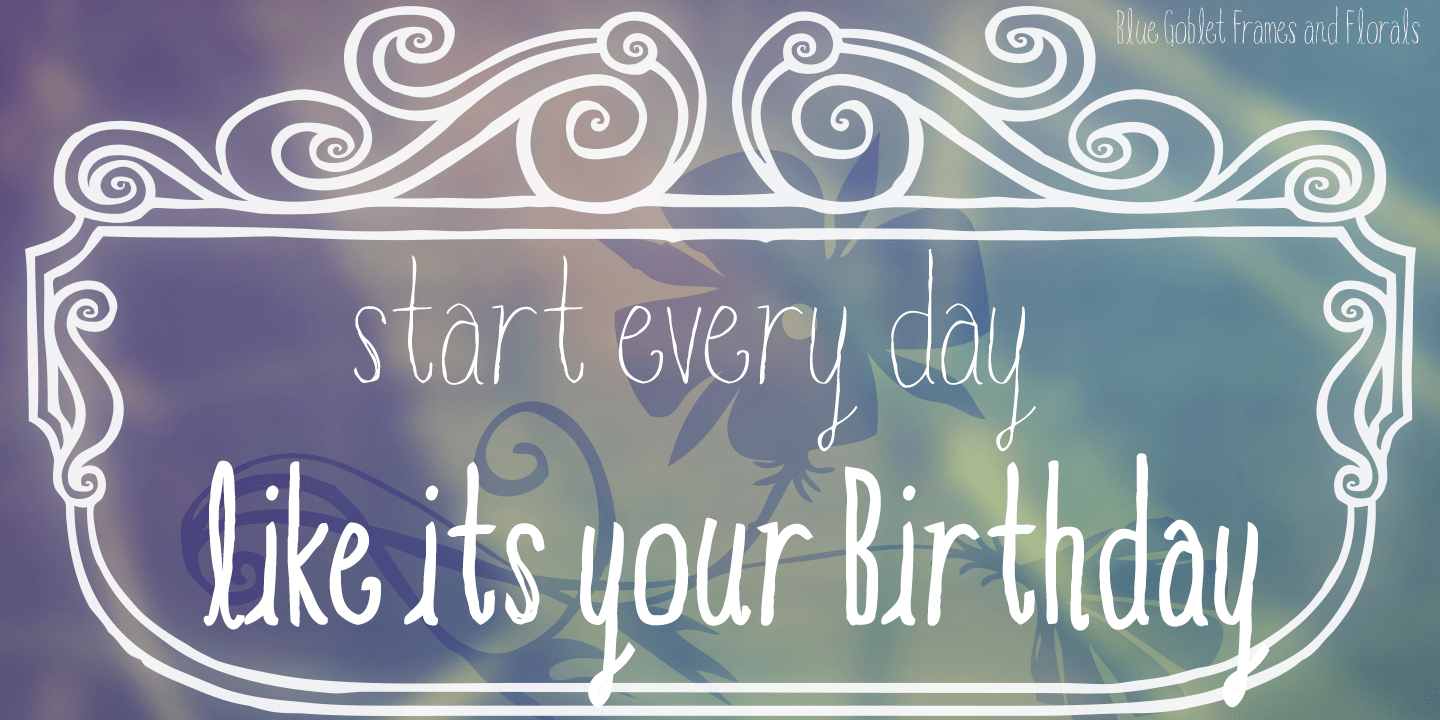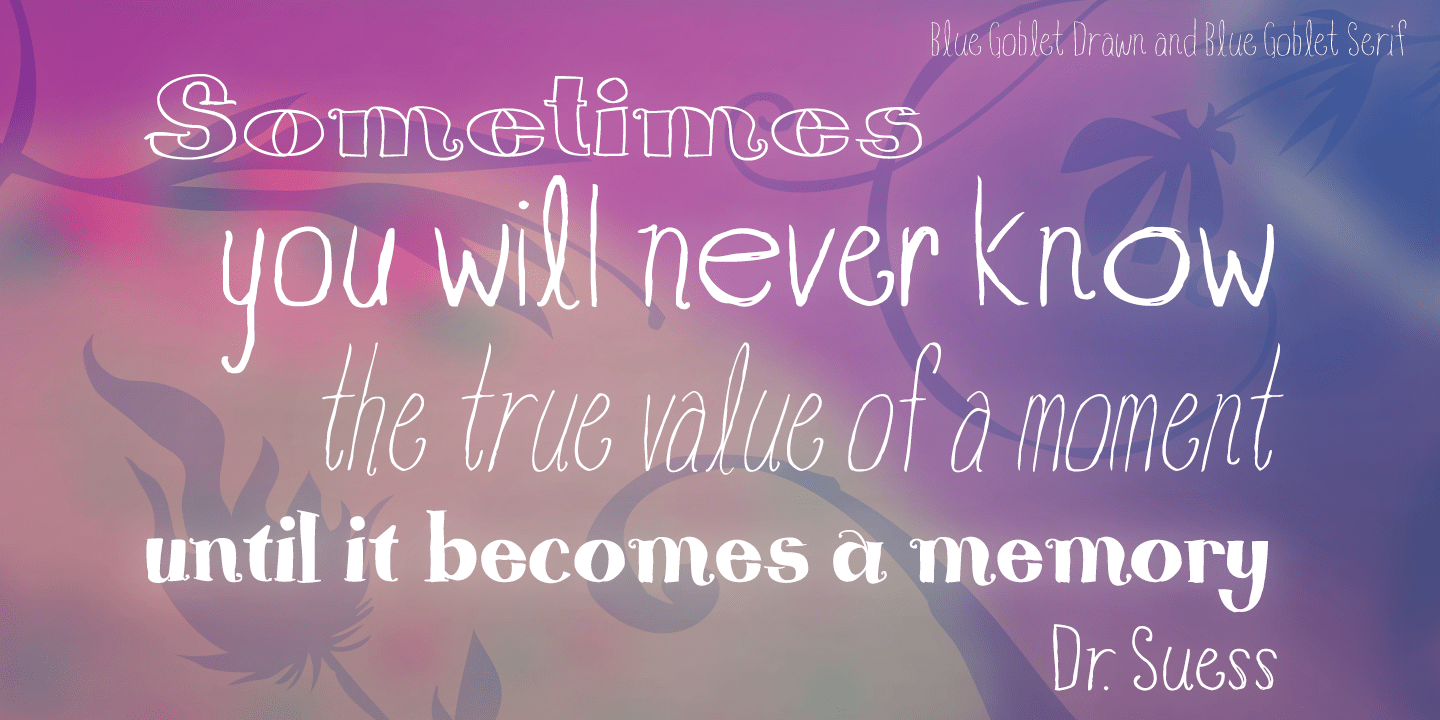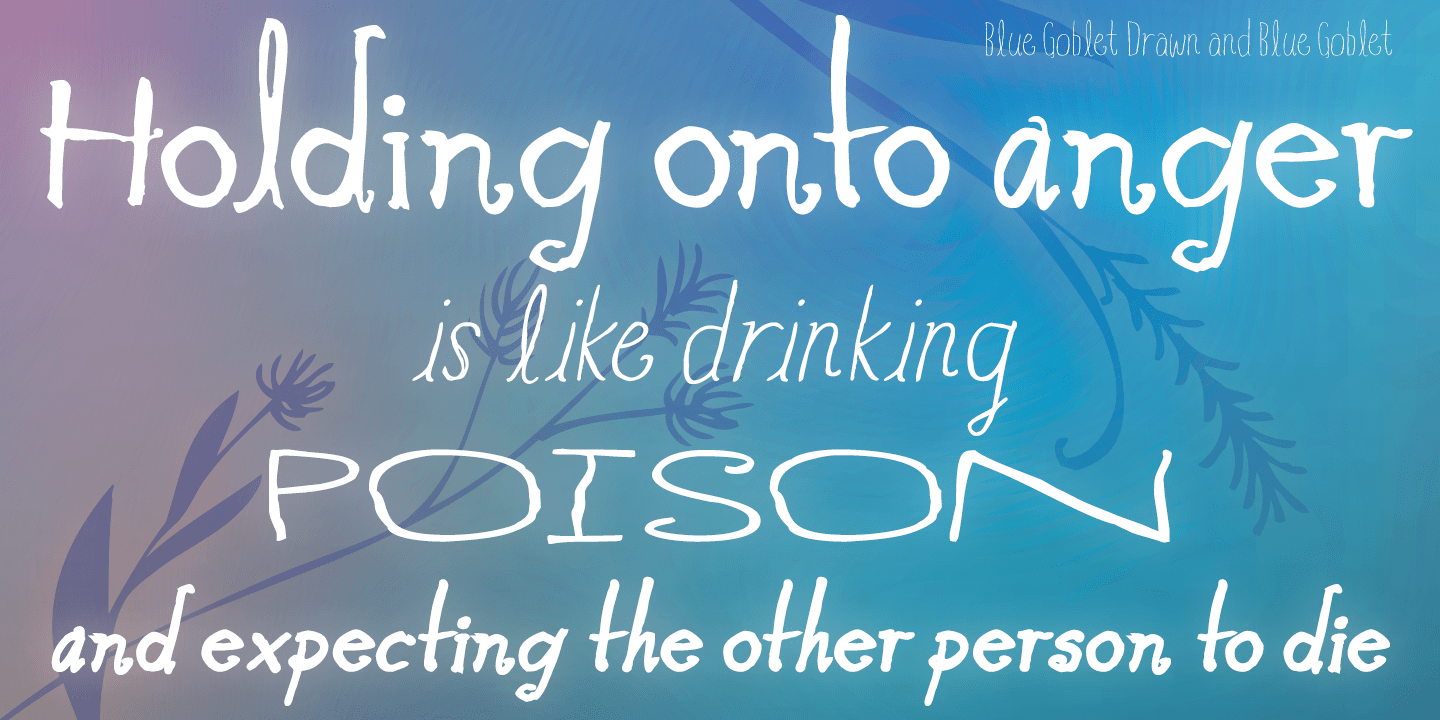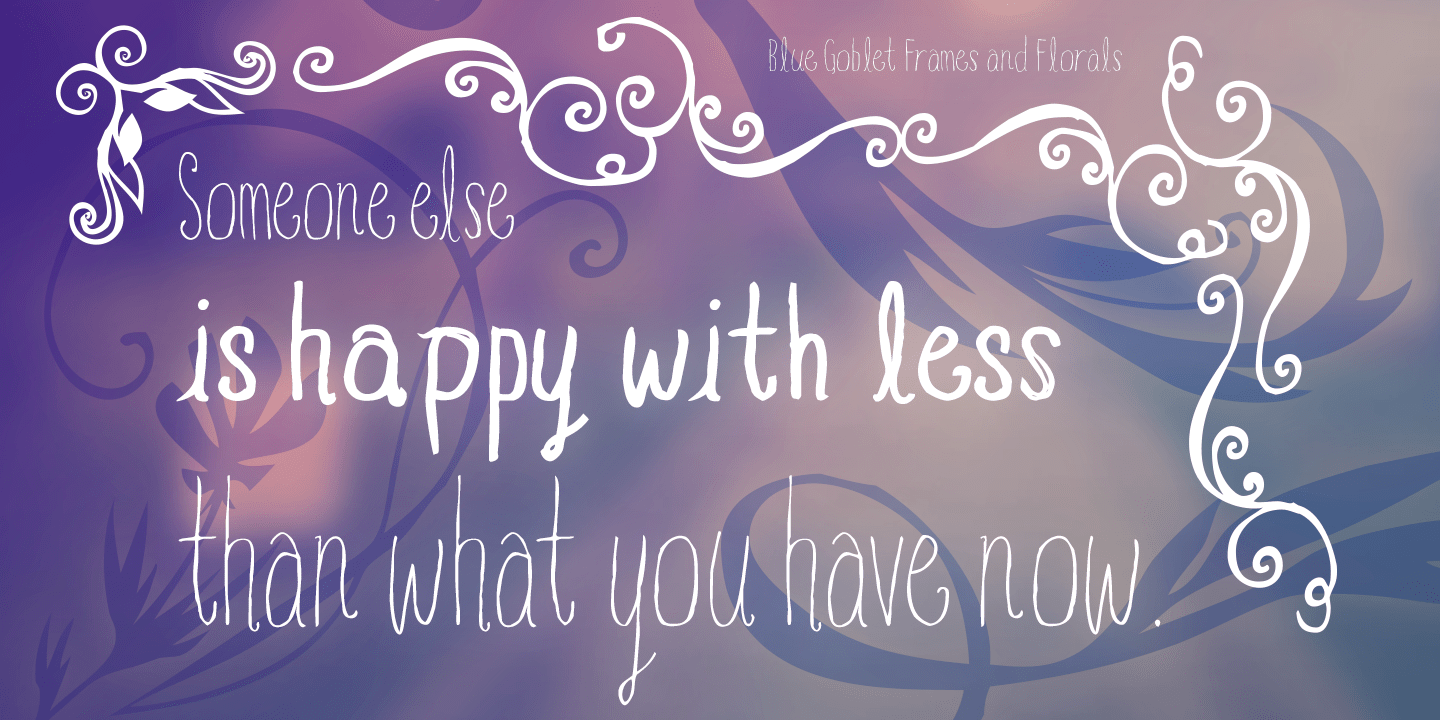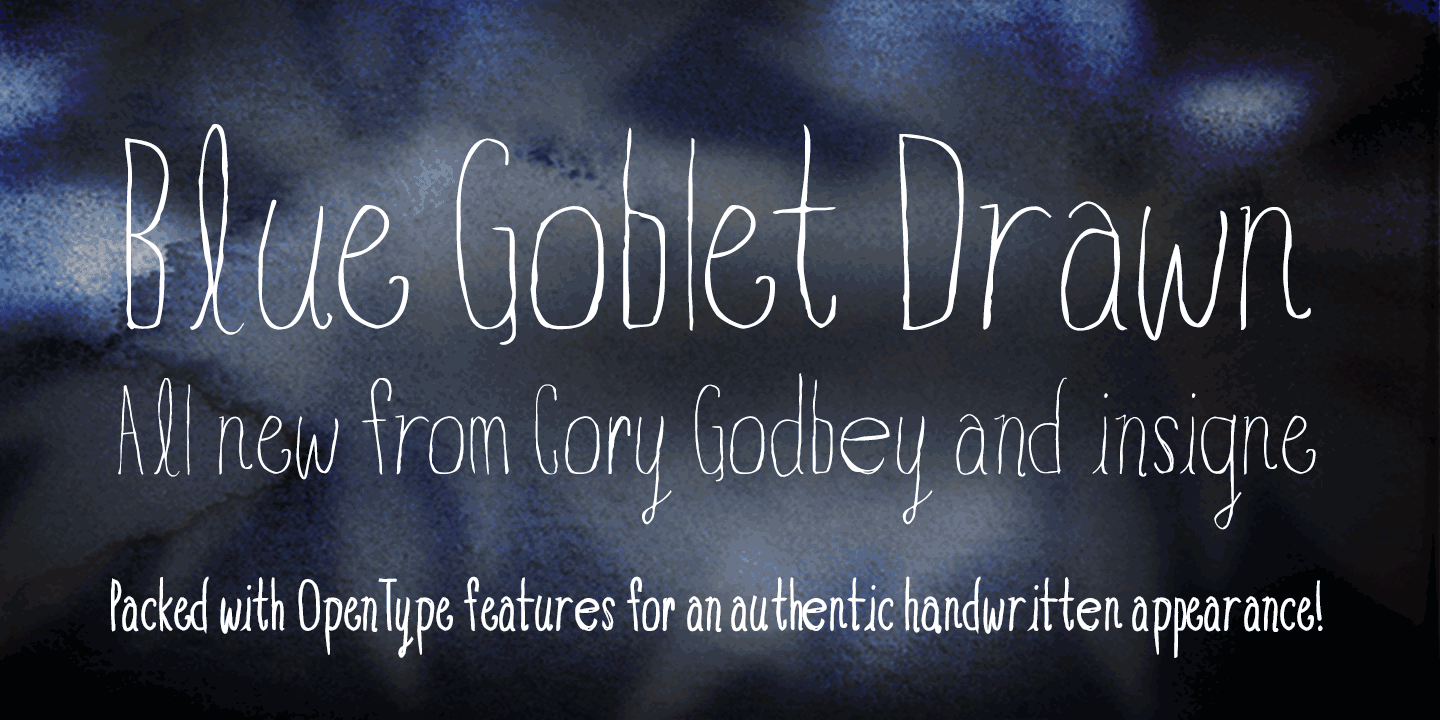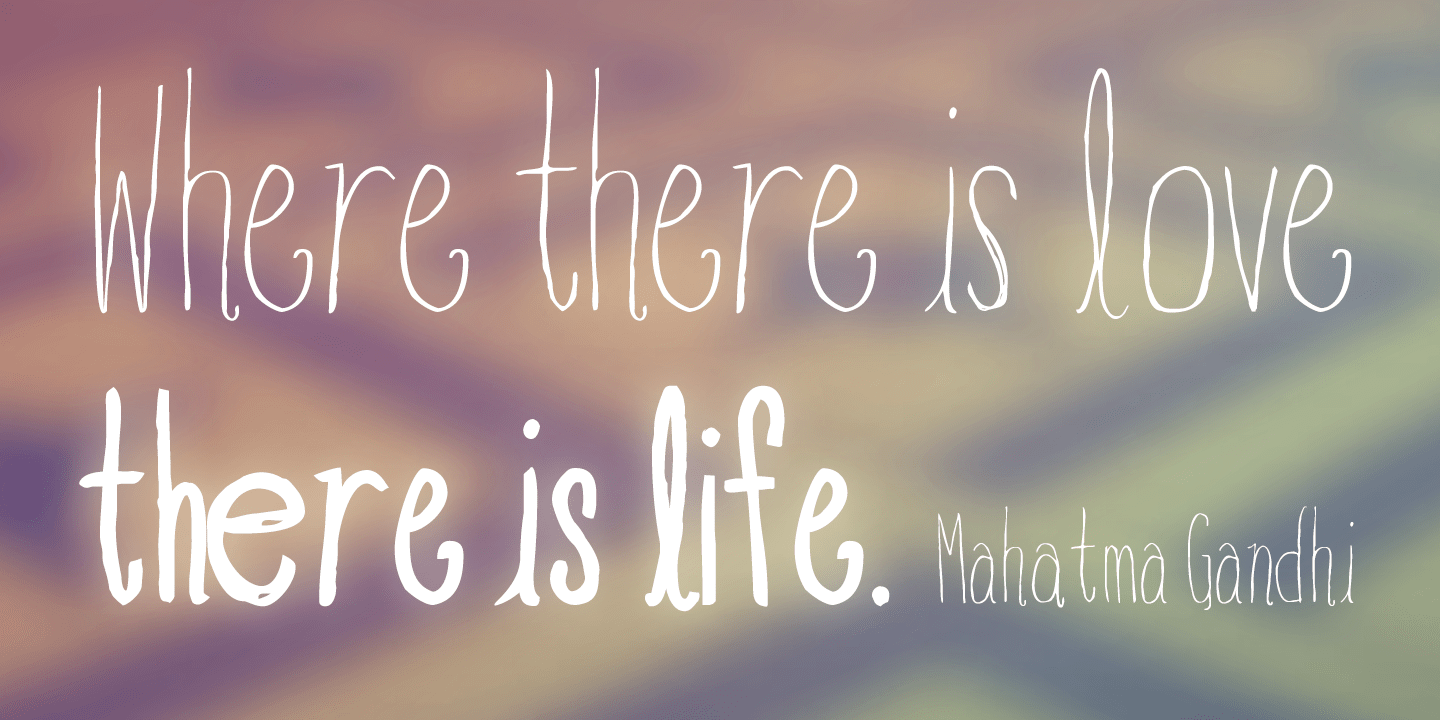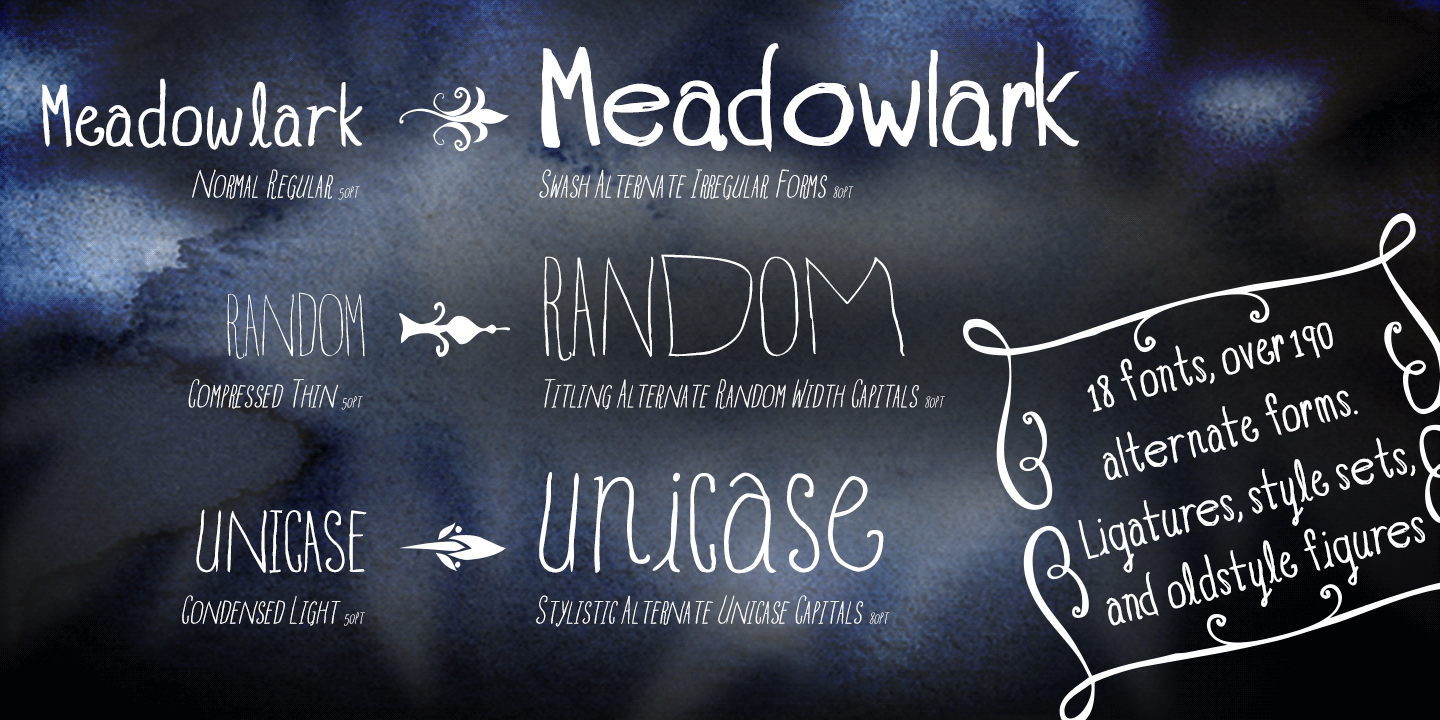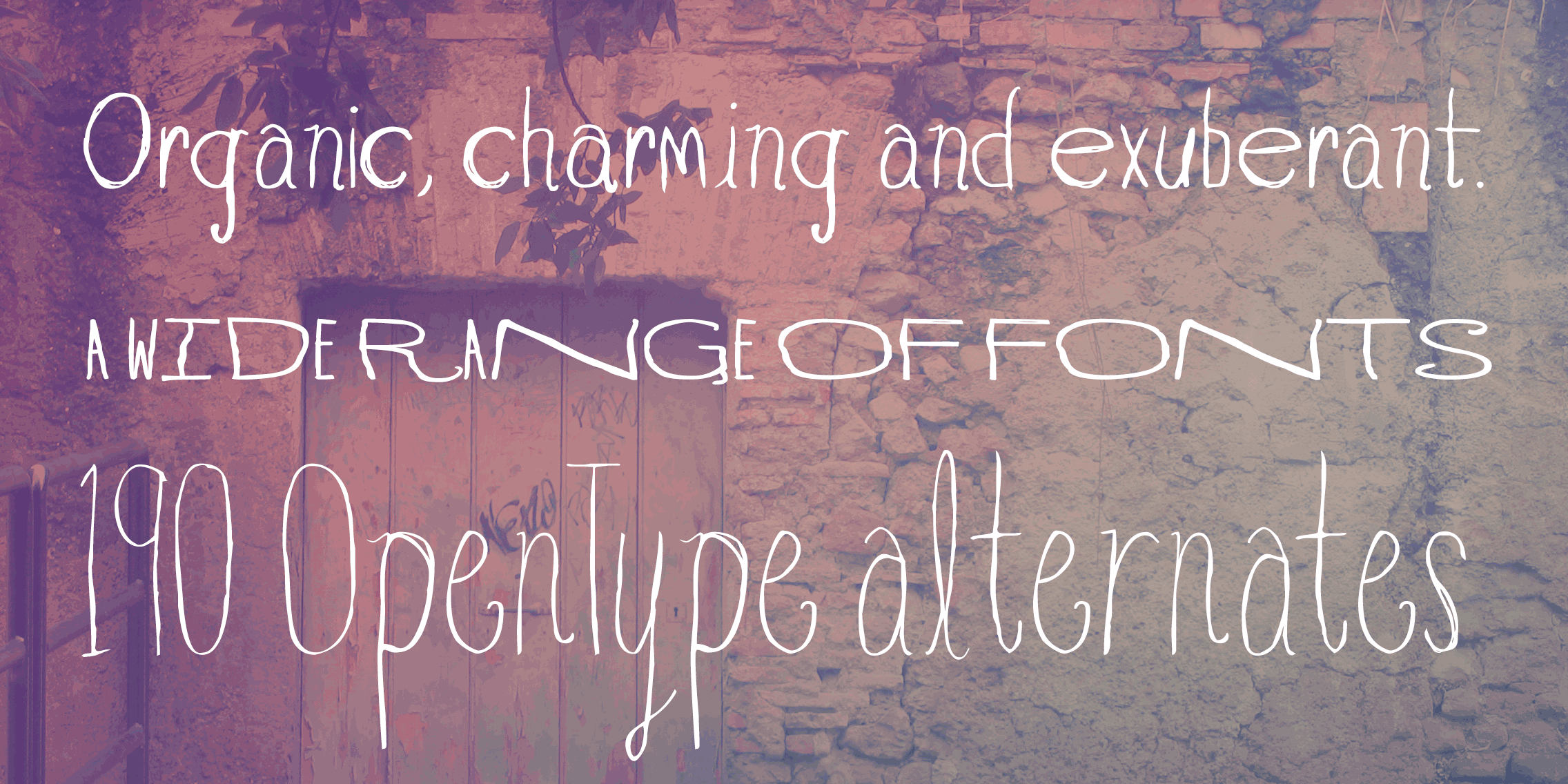
Blue Goblet Drawn
Buy NowThis best selling series has now been extended to include a new member, Blue Goblet Drawn. Blue Goblet is hand-drawn by the artist, Cory Godbey, and is organic, charming and exuberant. Characters bounce and dance above and below the baseline and x-height, making this a whimsical and fun script.
Not only is Blue Goblet Drawn a excellent choice, it also is also a versatile member of a wide family
of different fonts. You can use it side by side with the original Blue Goblet fonts, and there are a wide range of ornaments available in the supplemental ornament sets--over 370 illustrations! These illustrations include doodley frames, lovely florals and other text ornaments that can be inserted into your text and resized at will. This makes the Blue Goblet series a great pick when you want a type system for a very unique and consistent look. The Blue Goblet series also continues to expand, making any of these family members a valuable investment for the future.
Blue Goblet Drawn comes in three weights and three widths in each weight, with complementary italics for maximum impact for a total of eighteen pro fonts. The compact thin weights are delicate and tall, while the Regular has just enough heft for those situations where subtlety doesn't work. If you don't need the professional features, there are three stripped down fonts that include only the basic character set!
Blue Goblet Drawn also includes auto-replacing ligatures that make it appear that the script was drawn by the artist